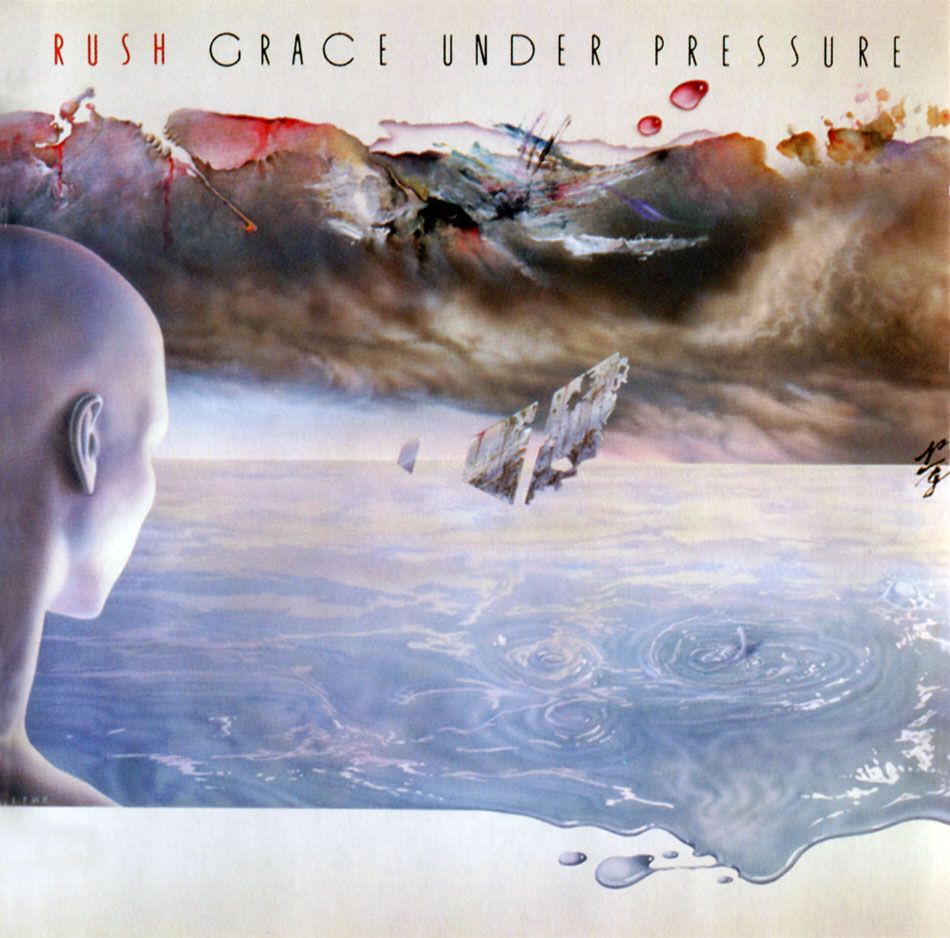
Grace Under Pressure Font
Fonts in UseGrace Under Pressure is the tenth studio album by the Canadian rock band Rush, released in 1984. The album features a more synth-heavy sound and explores themes of societal pressures and the human condition.
Organda, a decorative font created by Franz Heigemeir for Visual Graphics Corporation (VGC) in 1972, is showcased on the cover art of the album.